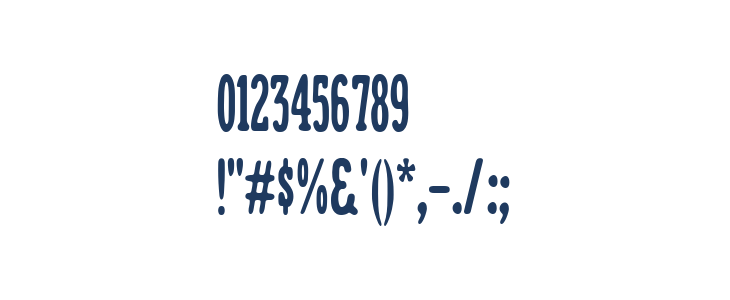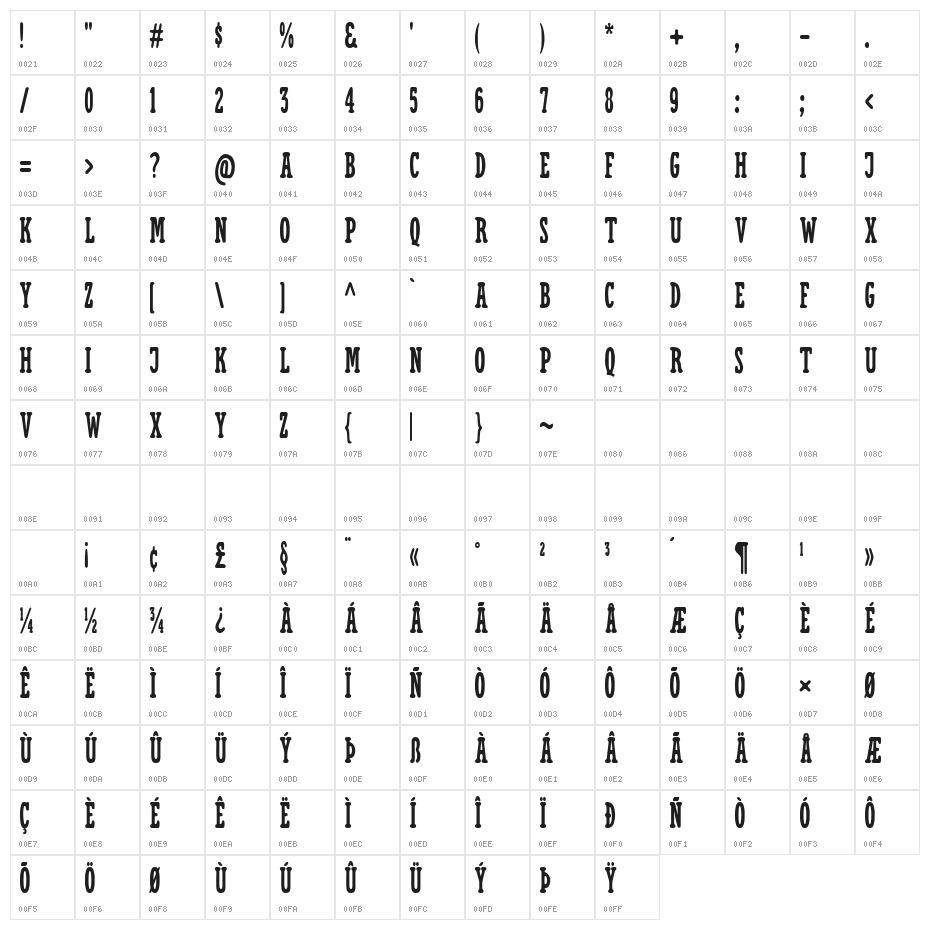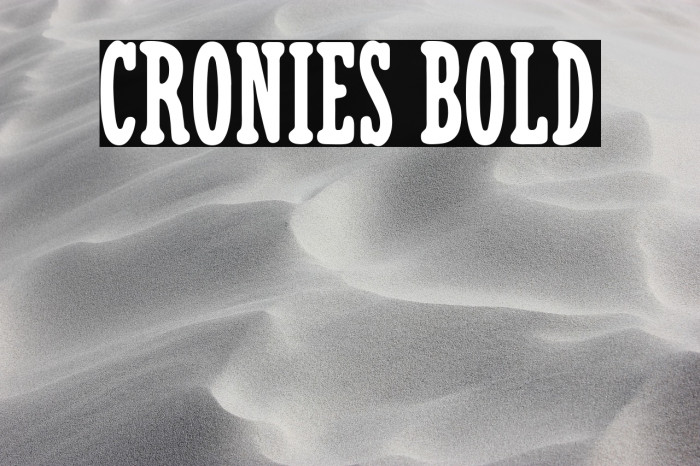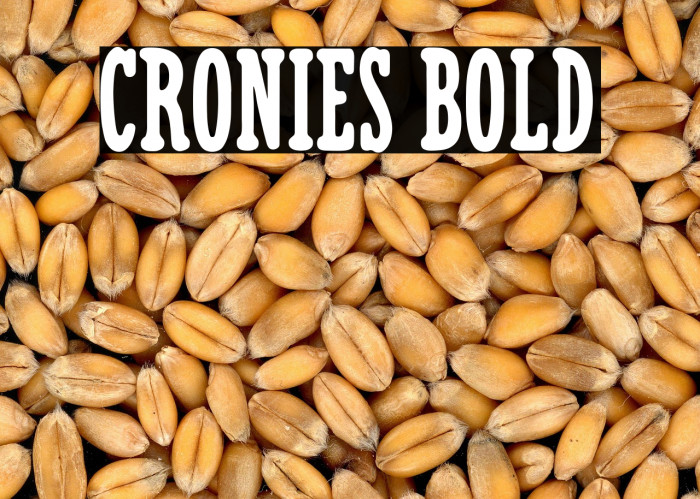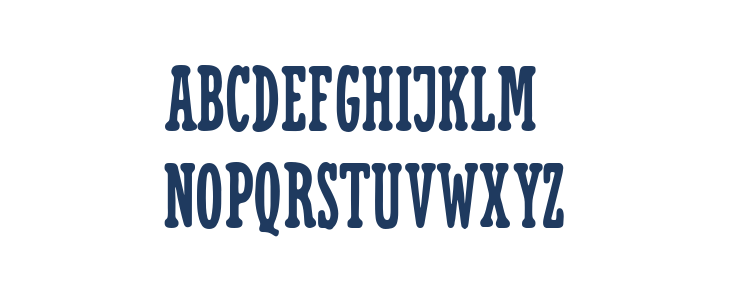
Cronies Bold Font
Cronies Bold Description
This font features a bold and playful design with thick, rounded strokes that give it a friendly and approachable appearance. The letters are slightly condensed, adding a touch of modernity while maintaining a classic feel. The characters have a consistent weight, providing a uniform look across the alphabet. The numbers and special characters follow the same style, ensuring cohesion throughout. This font is ideal for projects that require a bold statement with a touch of whimsy.
| Overall Style | Playful, Modern |
| Proposed Projects | Perfect for children's books, playful branding, posters, and headlines that need to stand out. |